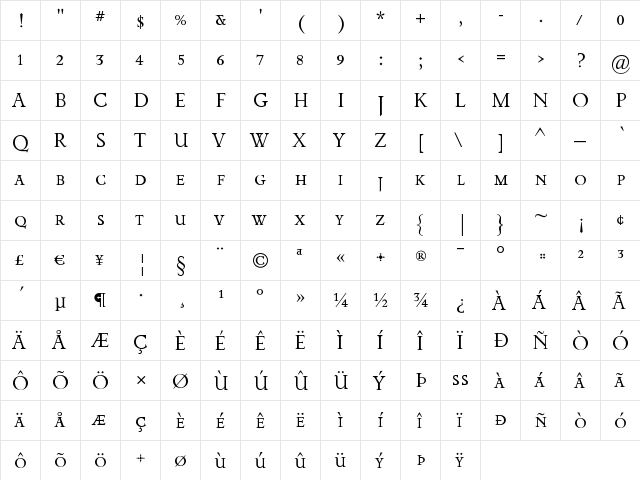
PrioriSerRegularSC Regular
| Designer | Jonathan Barnbrook |
Design Context for PrioriSerRegularSC Typeface
PrioriSerRegularSC is a composed and adaptable typeface that performs quietly and consistently across a wide range of design contexts.